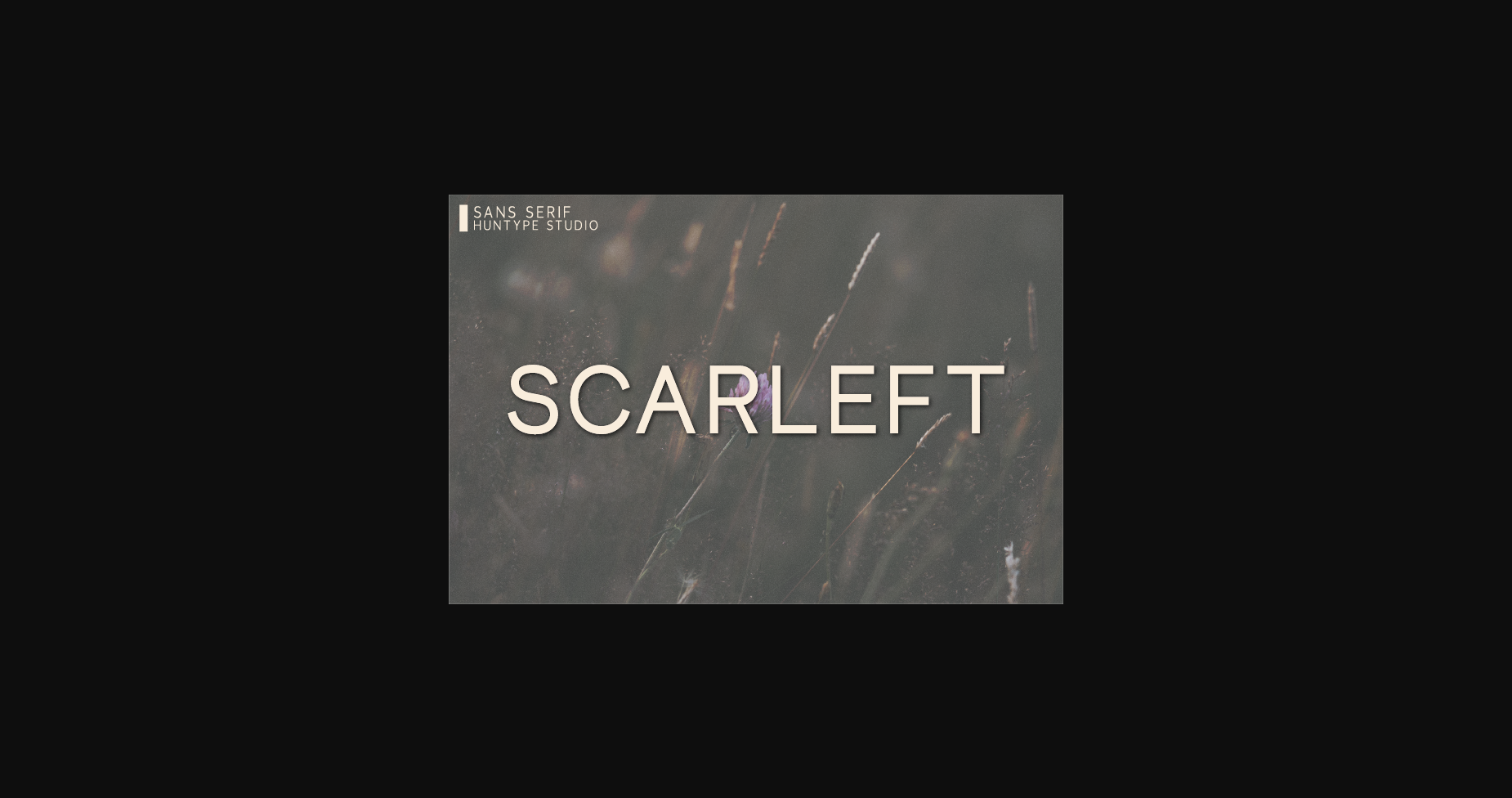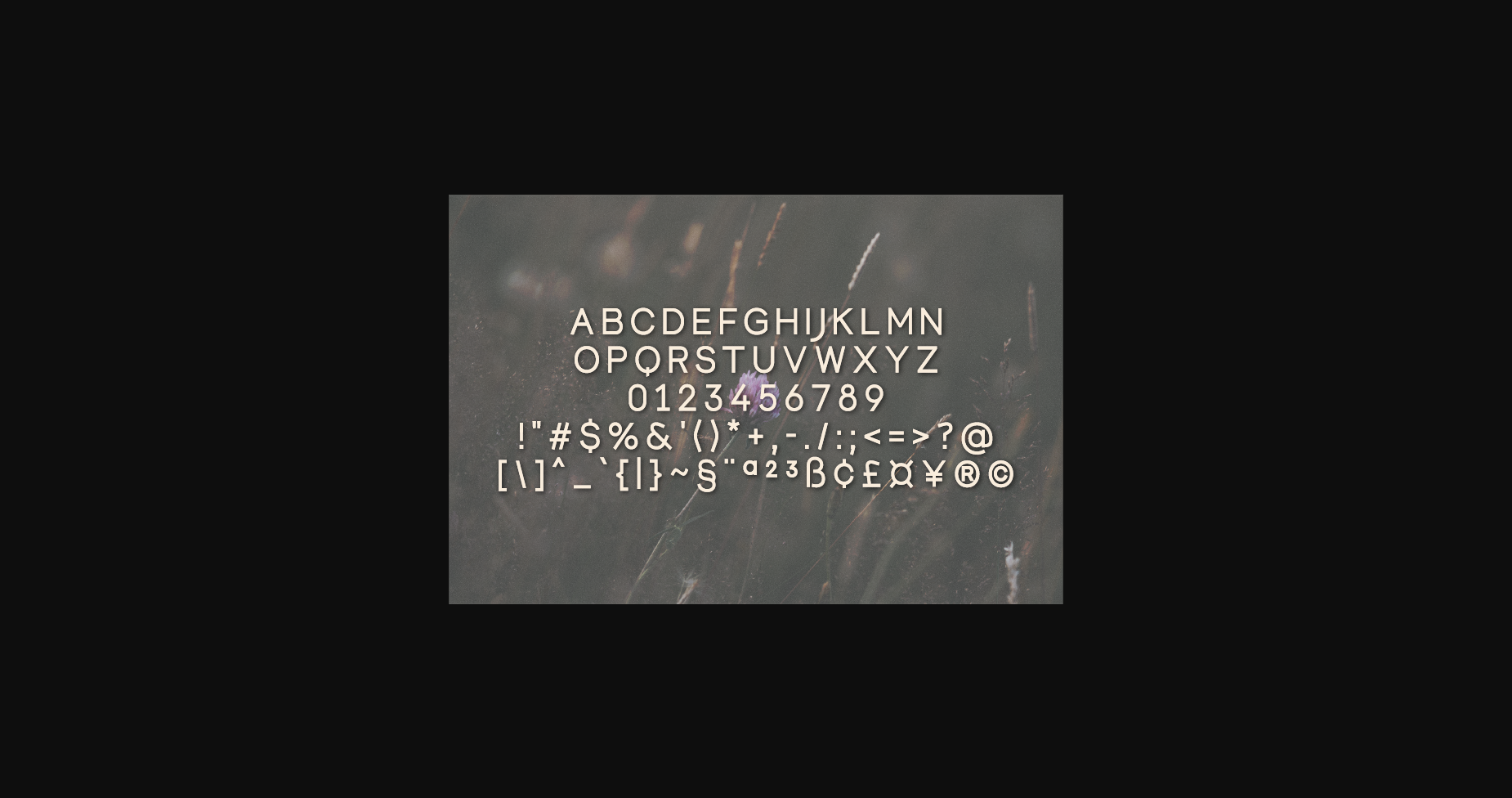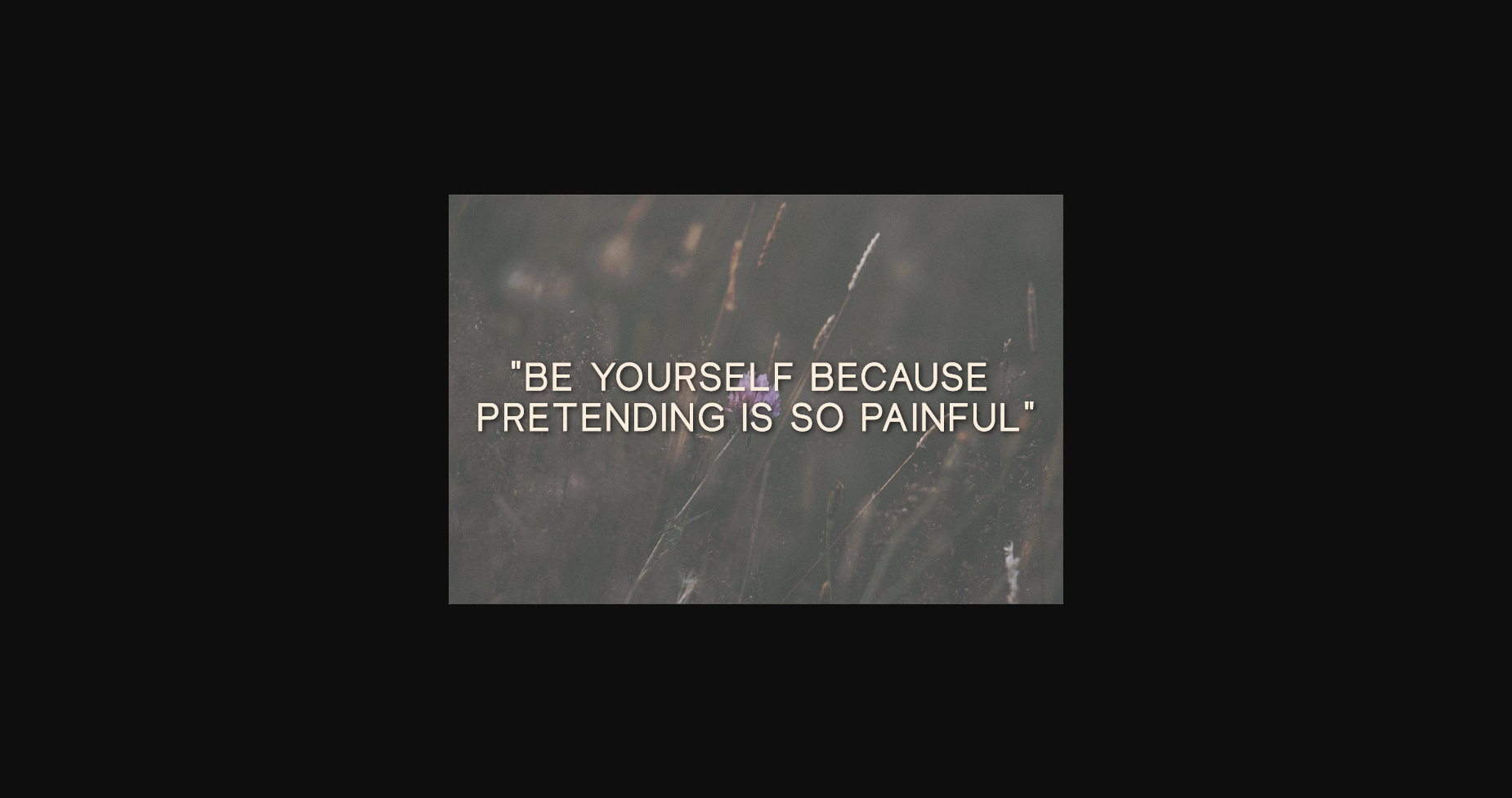
Scarleft Font
About Scarleft Font
Scarleft is a versatile sans serif font. No matter the topic, this font will be an incredible asset to your fonts’ library, as it has the potential to elevate any creation.